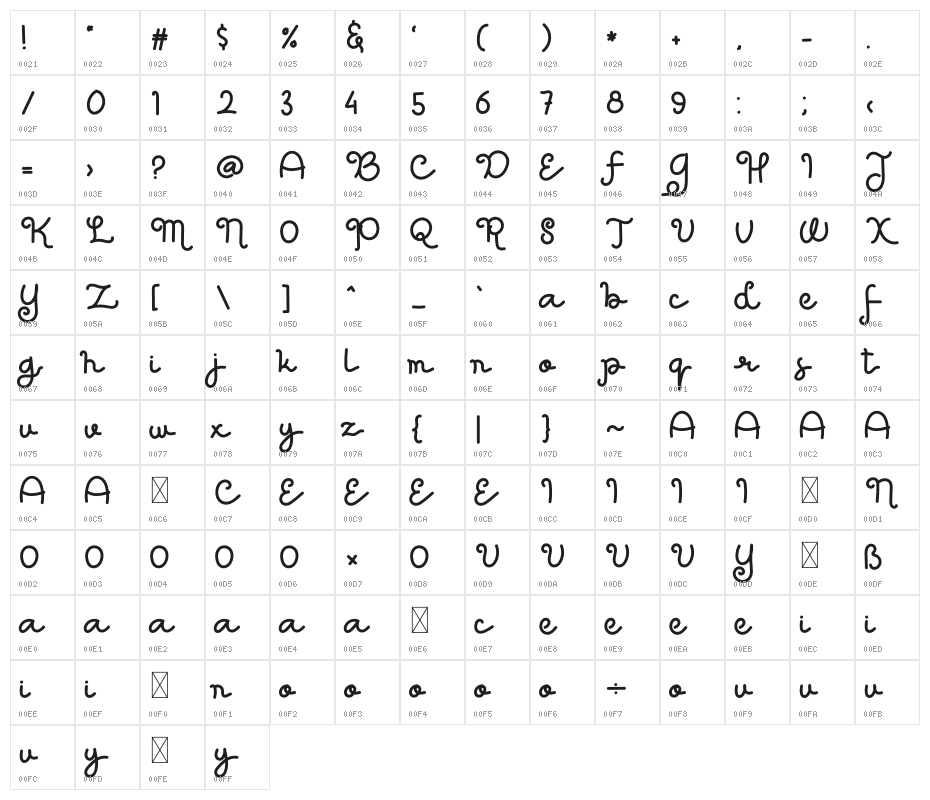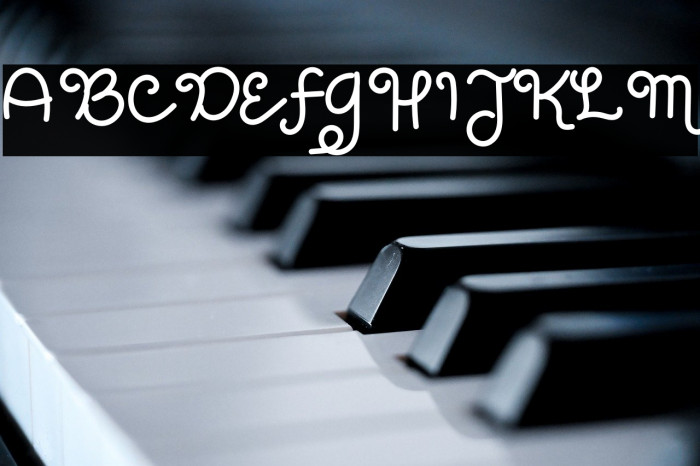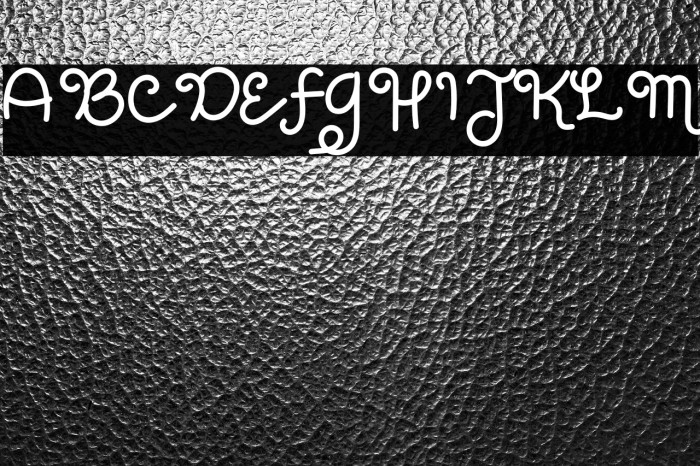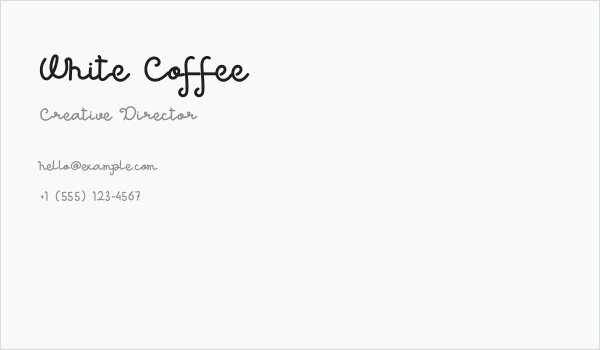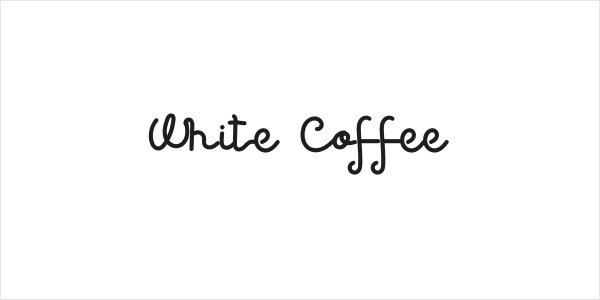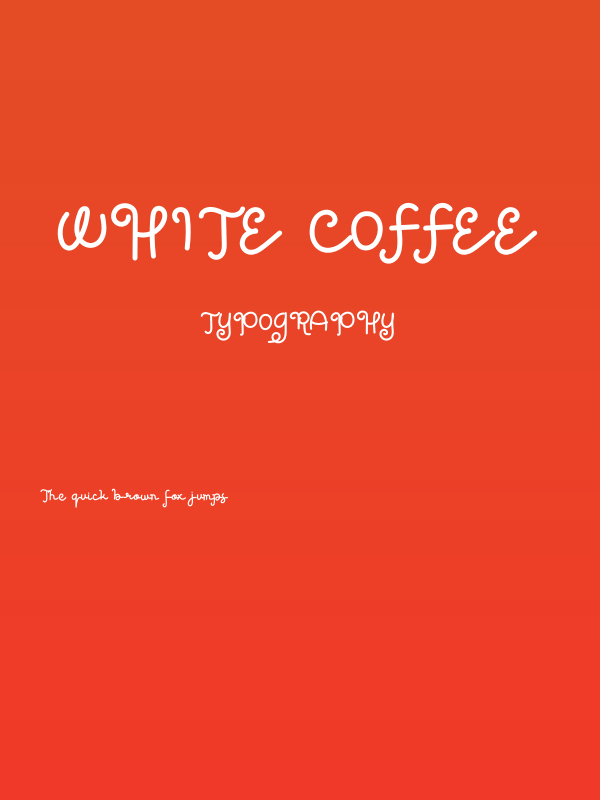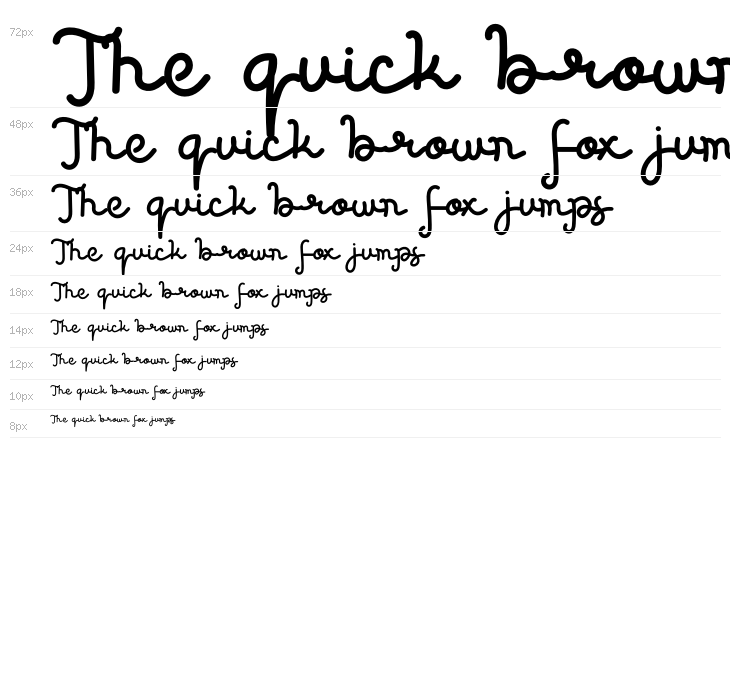
White Coffee Font
White Coffee Description
This font features a playful and whimsical style with a handwritten appearance. The characters are rounded and connected, giving it a fluid and continuous look. The uppercase letters are bold and slightly larger than the lowercase, which are more delicate and flowing. Numbers and special characters maintain the same playful aesthetic, with consistent stroke thickness throughout. The font exudes a casual and friendly vibe, making it suitable for informal and creative projects.
| Use Case | Logos, Headlines, Informal Text |
| Proposed Projects | Ideal for greeting cards, children's books, playful branding, and creative social media graphics. |